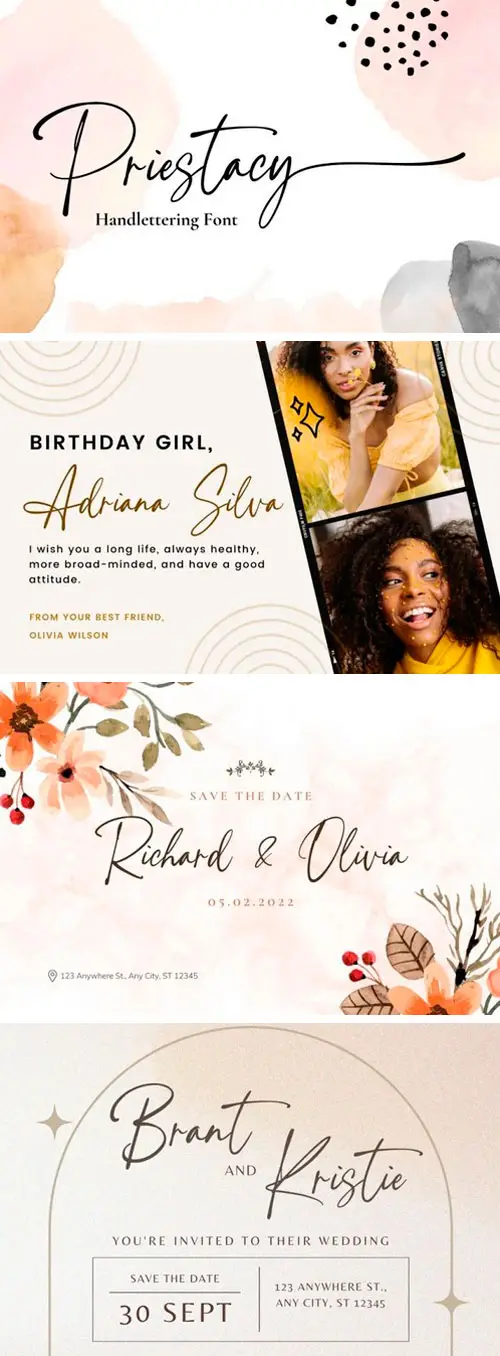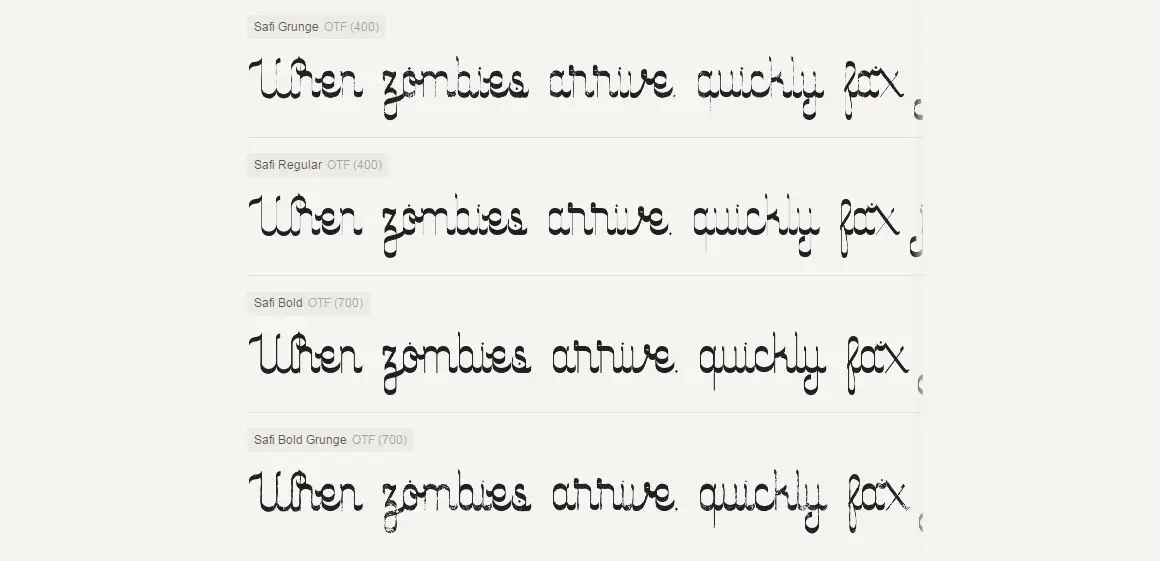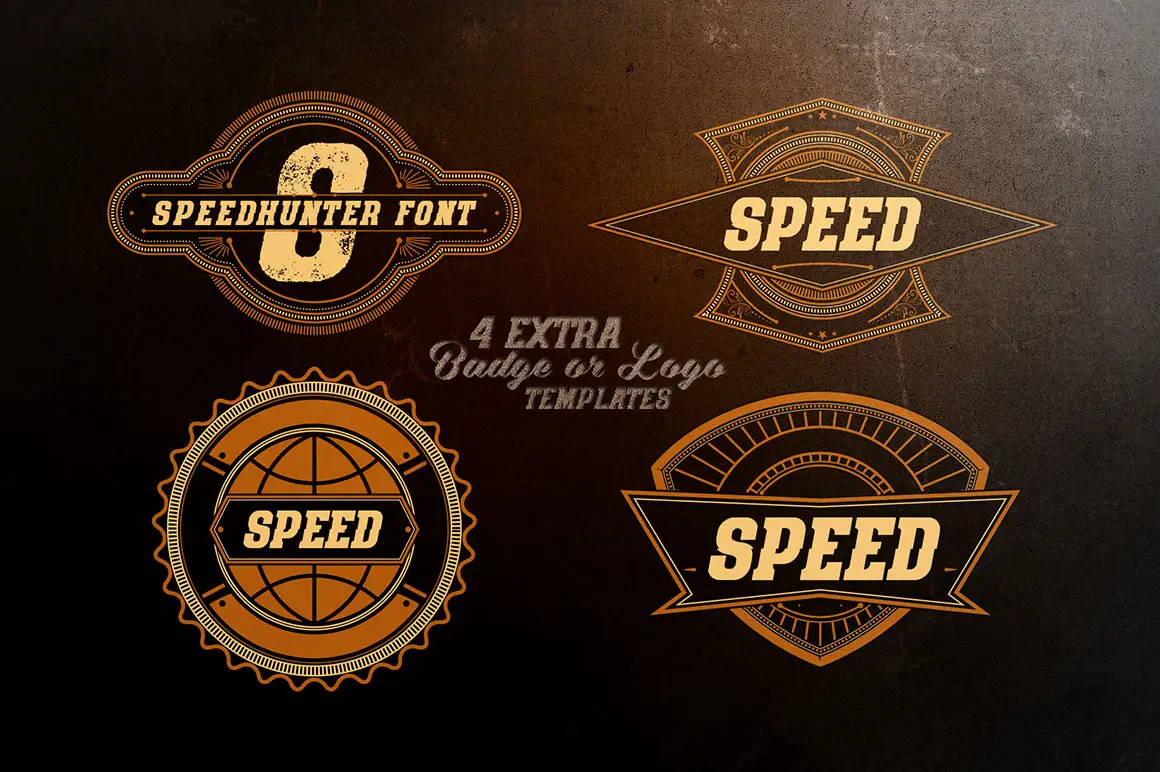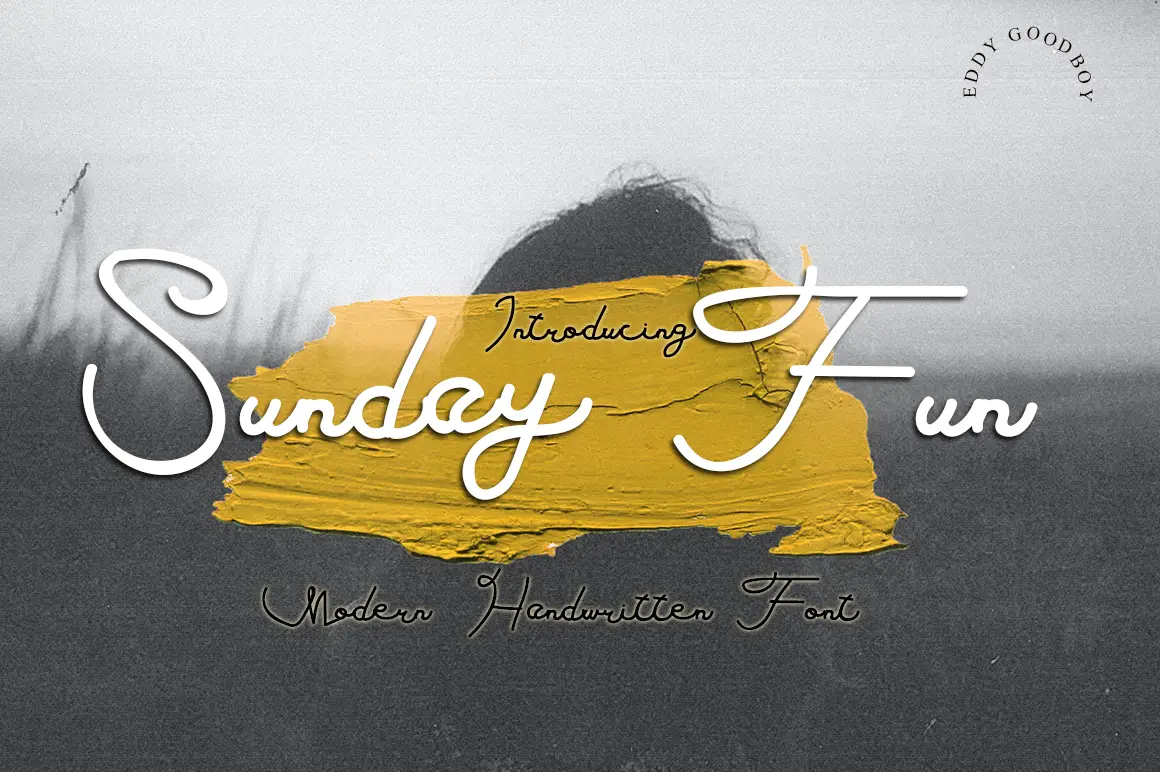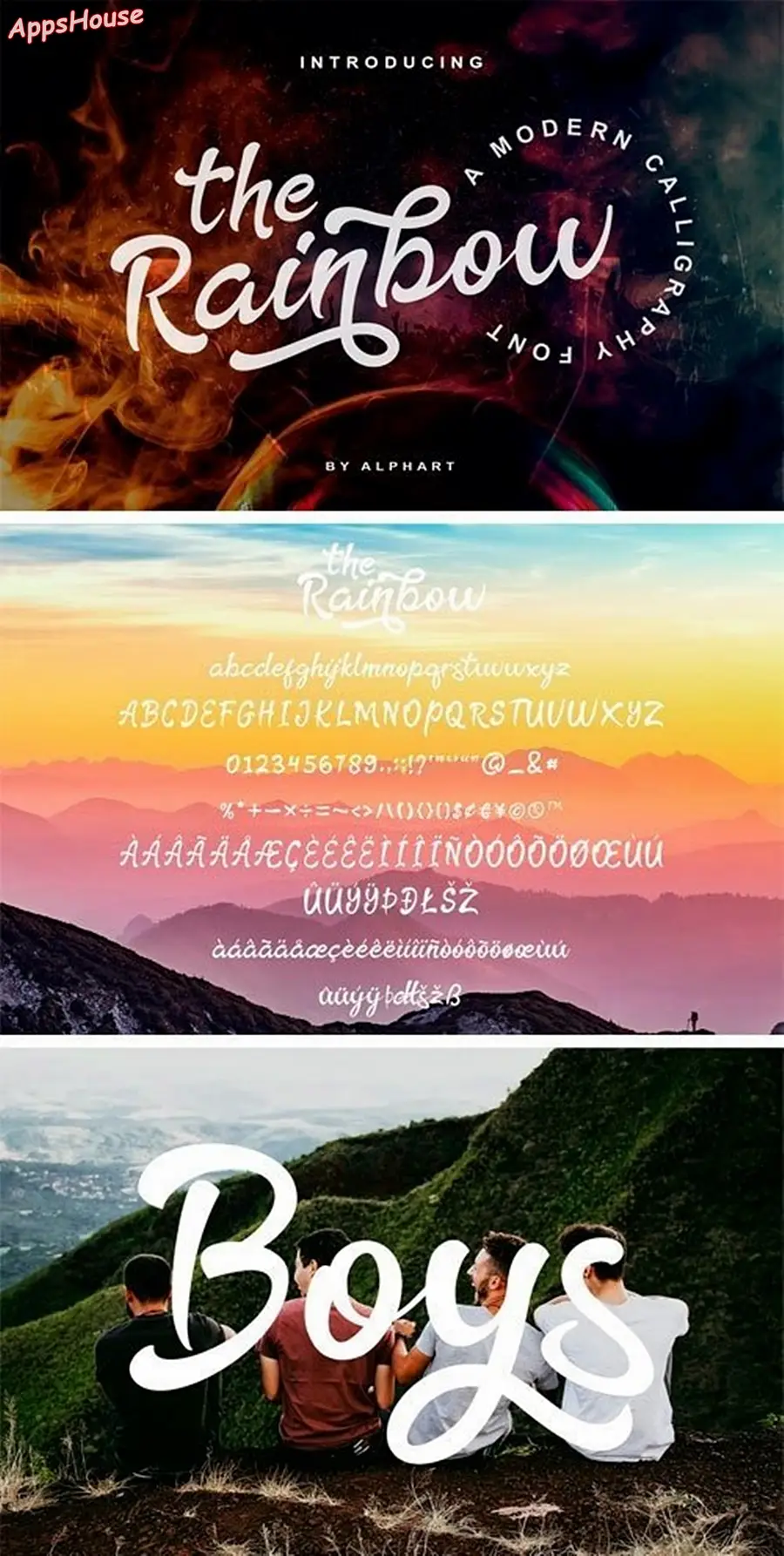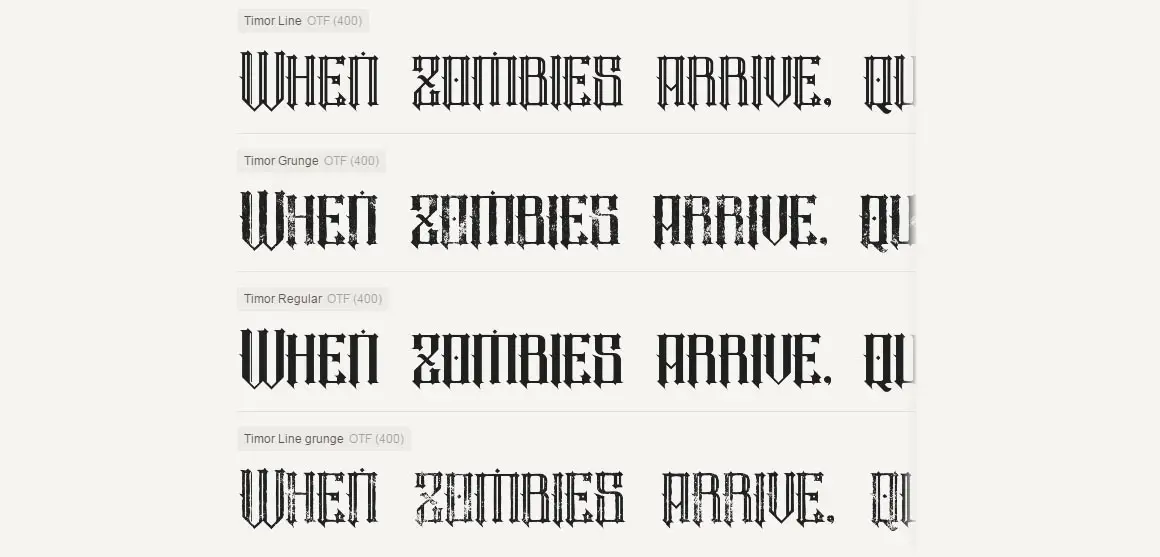
Hey there, creative soul! 👋 Ready to breathe some fresh life into your design toolbox? We’ve got a treat for you with **BrushesPack Collection Part 76**, a handpicked lineup of 20 stunning fonts and versatile assets that are just begging to be a part of your next masterpiece. Whether you’re crafting a sleek logo, designing a playful invitation, or building a bold brand identity, this collection has something special waiting for you. Let’s dive in and find your new favorite creative companion! 🚀✨
Why Use These Design Assets?
Great design starts with the right tools. These assets aren’t just pretty graphics—they’re crafted to save you time, spark inspiration, and give your projects that professional “wow” factor. From eye-catching display fonts that scream for attention to delicate handwritten scripts that whisper elegance, this kit is your secret weapon for making magic happen in Canva, Photoshop, Illustrator, or any other design platform. 🎨💡
Top 20 BrushesPack Collection Part 76 Picks
Charlie
Meet **Charlie**, the ultimate digital sidekick for your branding and marketing projects! 🚀 This high-quality asset is super easy to customize, making it perfect for adding a unique, polished flair to everything from business cards to social media graphics.
Vince Display Font
Get ready to turn heads with **Vince Display Font**! 💥 Its bold, elegant curves are a dream for headlines and branding, and the multiple weights give you all the flexibility you need to make a striking statement.
Speedhunter
Rev up your creativity with **Speedhunter**! ⚡ This high-resolution asset pack is packed with customizable elements that bring clarity and detail to any project, making your workflow faster and your designs sharper.
Sunday Fun Handwritten Font
Add a splash of playful charm with **Sunday Fun Handwritten Font**! 🖊️ This casual, personal style is perfect for invitations, social media posts, and branding that needs a happy, human touch.
Wendi Typeface
Keep it classy with the **Wendi Typeface**! 😍 This modern sans-serif gem is incredibly versatile, offering regular, bold, and light weights to perfectly match your branding or digital content vibe.
Oldsailor Vintage Typeface
Ahoy, nostalgia! ⚓ The **Oldsailor Vintage Typeface** brings classic maritime charm with a touch of elegance. Perfect for projects that need a timeless, storybook feel.
Prostf Display Font
Make a statement with **Prostf Display Font**! 🗣️ Its bold, unique character shapes are designed for eye-catching headlines and promotional materials that demand attention.
Videography Script Font
Flow like a dream with the **Videography Script Font**! ✨ Its beautiful, artistic lines are a match made in heaven for logos, branding, and elegant print materials. Plus, it supports multilingual characters!
Safi
Get lost in the unique aesthetic of **Safi**! 🎨 This collection of high-resolution graphics and illustrations is fully editable, letting you seamlessly blend them into your brand.
Priestacy Handwritten Font
Channel creative elegance with **Priestacy Handwritten Font**! 🌟 Its fluid strokes and personal touch make it a standout choice for branding and web design.
The Rainbow Modern Calligraphy Font
Add a pop of color and class with **The Rainbow Modern Calligraphy Font**! 🌈 Its smooth curves are perfect for invitations and branding that need to be both elegant and contemporary.
Timor
Elevate your project with **Timor**! 🖼️ This versatile asset pack brings crisp, high-resolution visuals and a variety of design elements like backgrounds and patterns.
Xepon Display Font
Go big or go home with **Xepon Display Font**! 🚀 Its bold presence and unique shapes are made for impactful visual communication—perfect for posters and headlines.
Yorkshire 2
Get cozy with **Yorkshire 2**! ☕ This versatile collection of high-resolution assets offers unique designs that are super easy to customize, helping you stand out from the crowd.
Woodpecker Typeface
Bring a breath of fresh air with the **Woodpecker Typeface**! 🌿 Its nature-inspired, organic shapes are quirky and fun, making it great for logos and playful branding.
Wilder Family & Handdrawn Kit
Go wild with the **Wilder Family & Handdrawn Kit**! 🐾 This is your go-to for a personal, handcrafted look, with versatile illustrations that add soul to any project.
Star Wars Display Font
May the force be with your designs! ⭐ The **Star Wars Display Font** is a must-have for any fan, bringing that iconic sci-fi magic straight to your headlines and posters.
Pink Cream Script Font
Sweeten your designs with **Pink Cream Script Font**! 🍦 Its flowing curves and sophisticated style make it a dream for elegant branding and beautiful invitations.
Summery Handwritten Calligraphy Font
Catch those sunny vibes with the **Summery Handwritten Calligraphy Font**! 🌞 It captures the essence of elegant handwriting, perfect for a personal touch on invites and logos.